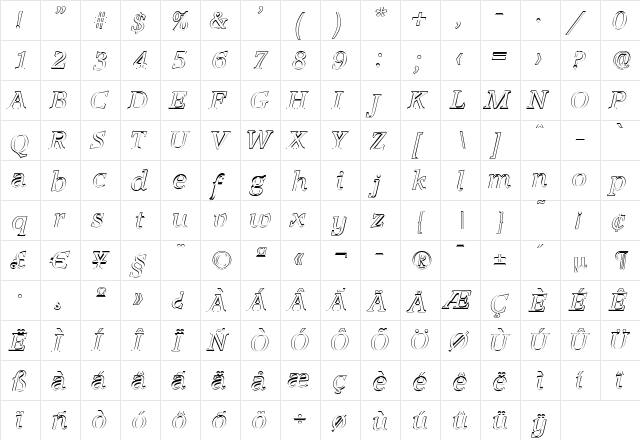
MichaelBeckerOutline Italic
Design Context for MichaelBeckerOutline Typeface
MichaelBeckerOutline brings ornamental detail and strong personality to headlines and identities, where visual impact matters more than quiet functionality. The slanted form adds forward momentum and visual energy.
Font Pairing: Pair with a clean neutral sans-serif for body copy to let MichaelBeckerOutline's character lead without overwhelming the composition.
Pro Tip: Use MichaelBeckerOutline exclusively at display sizes — it was designed to be seen, not read at length. Let a neutral companion handle body copy.